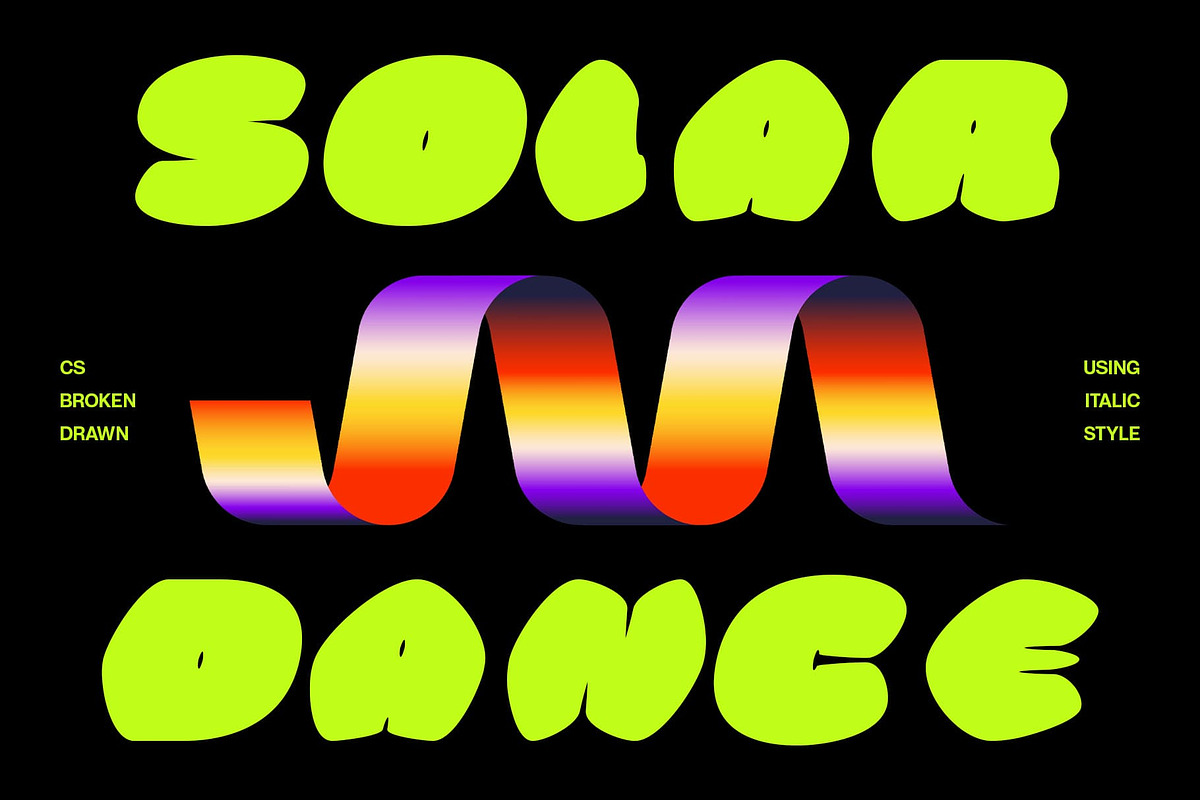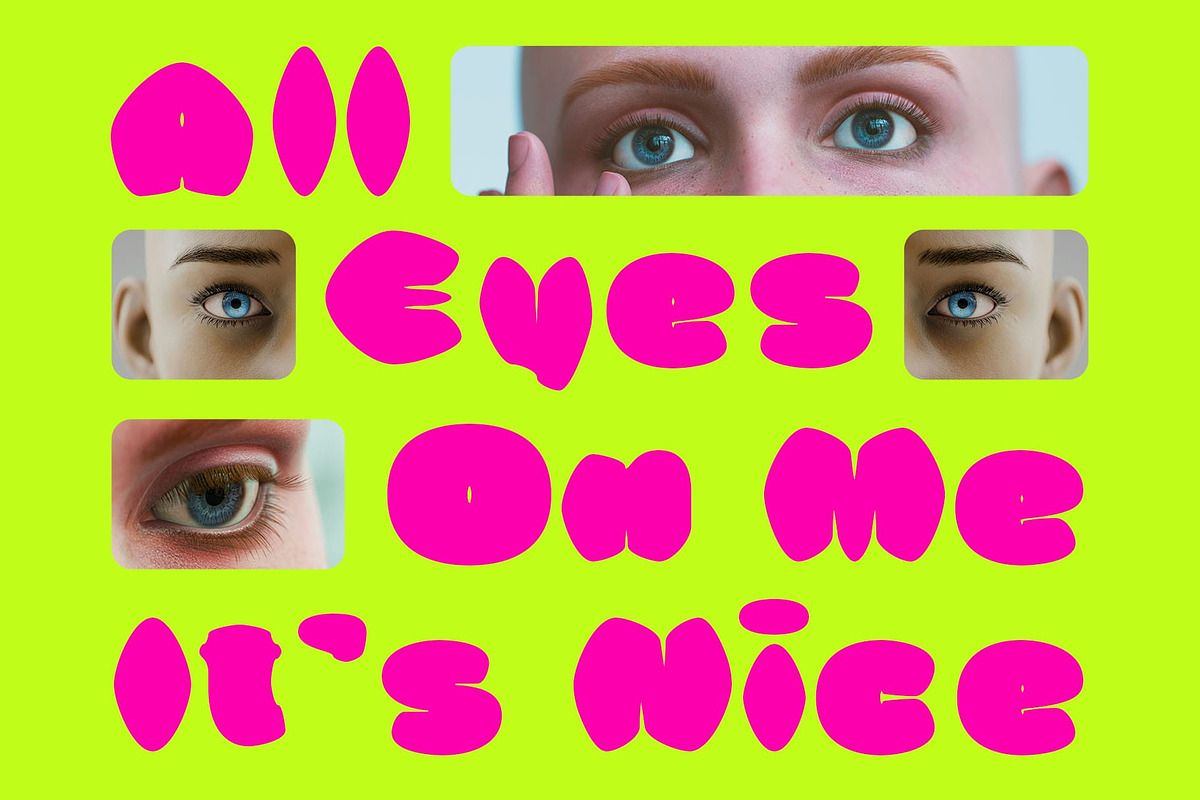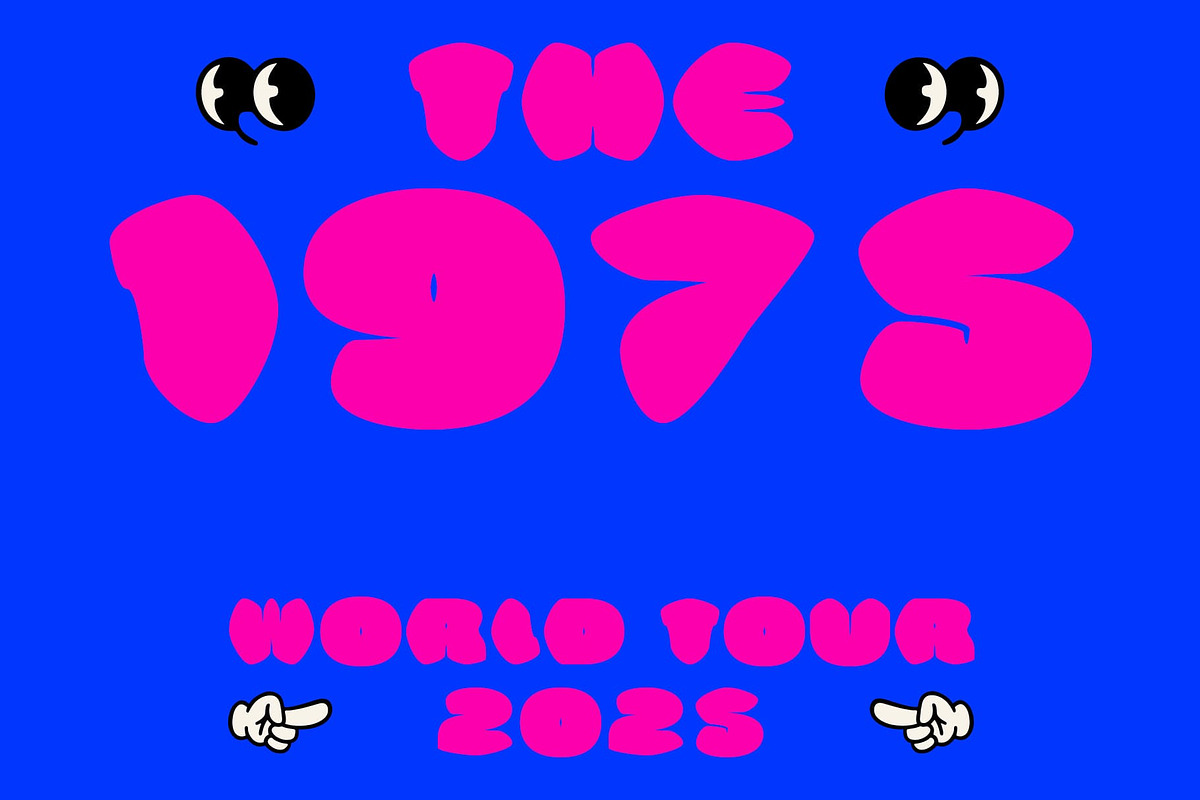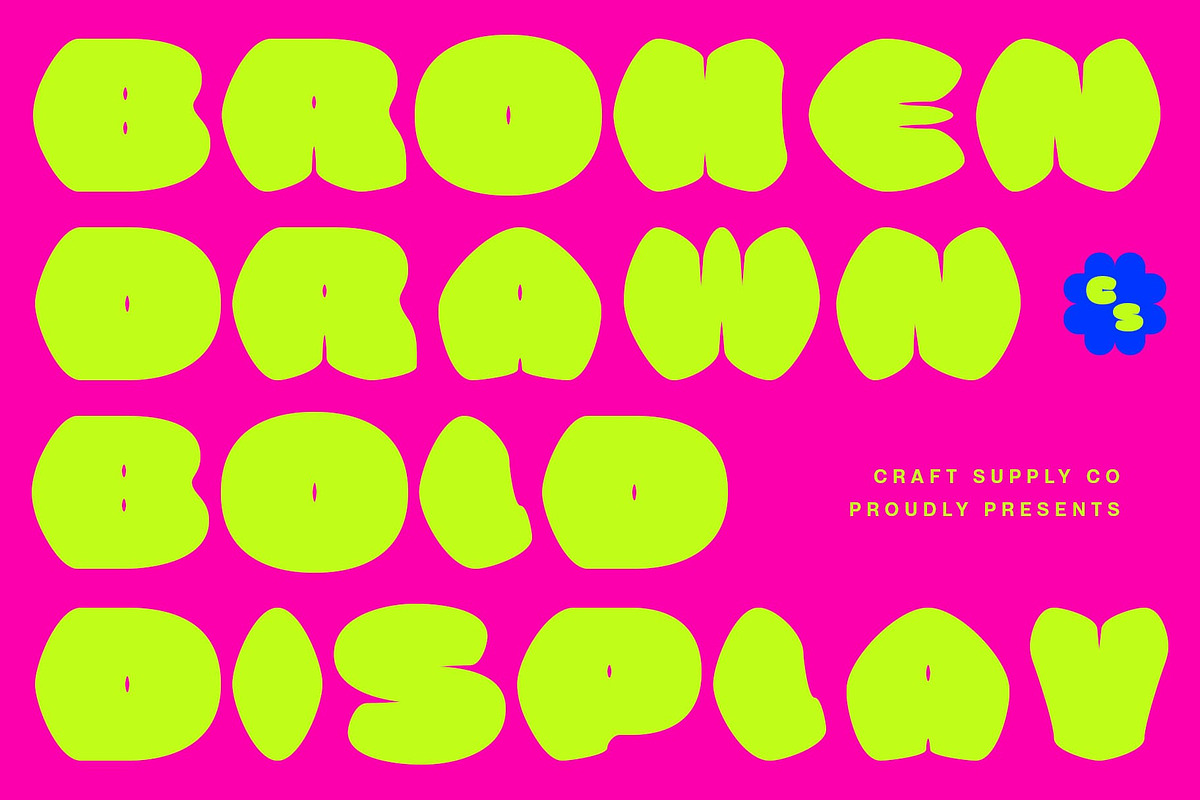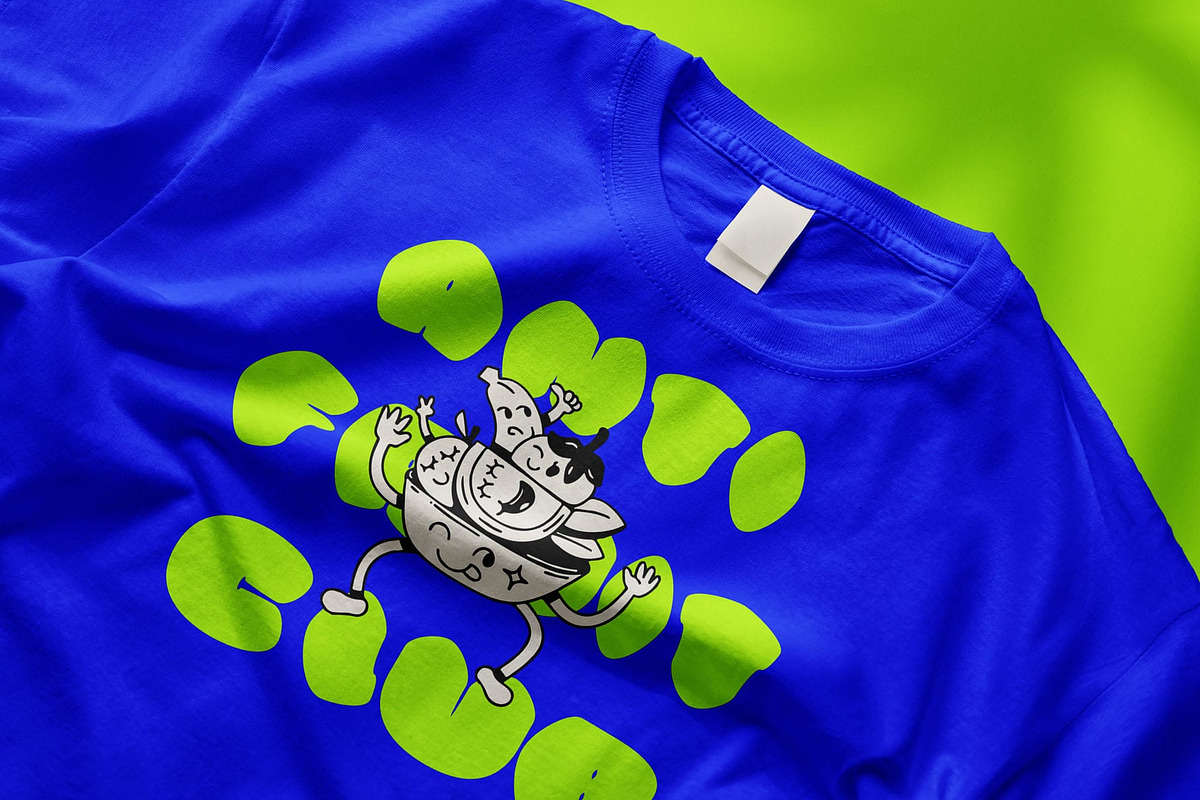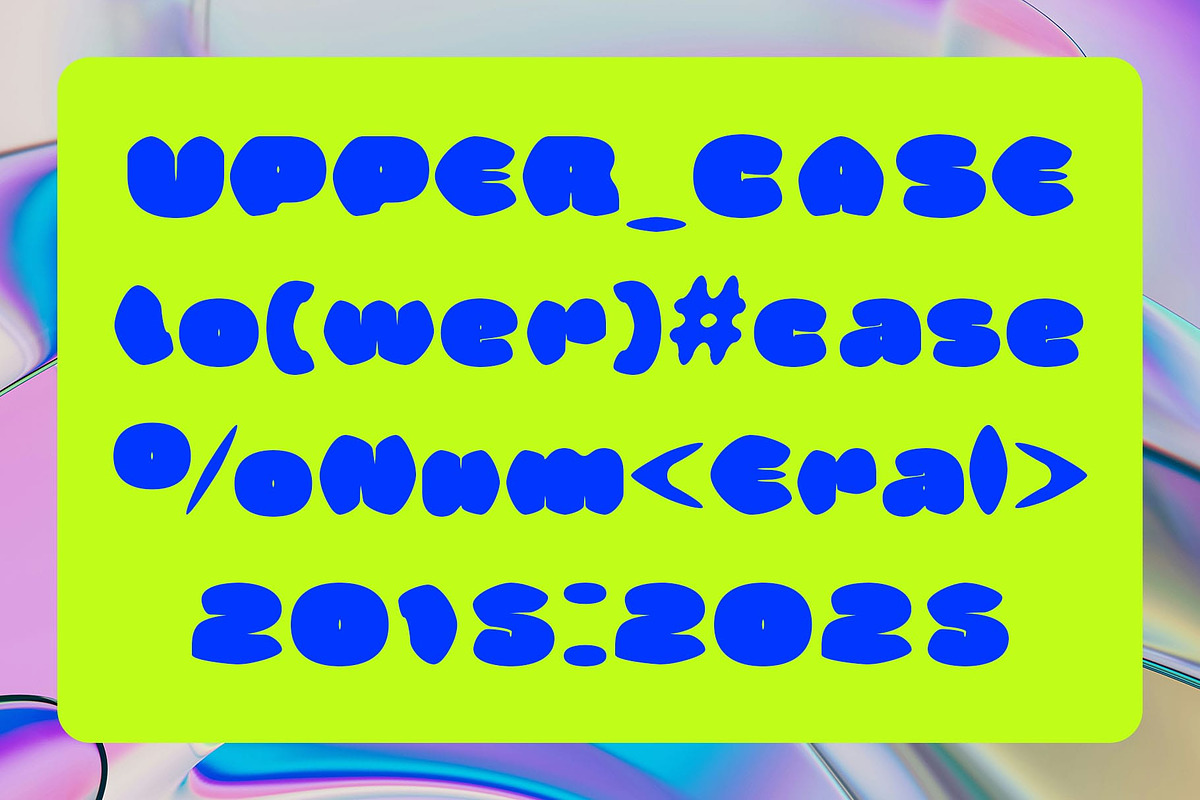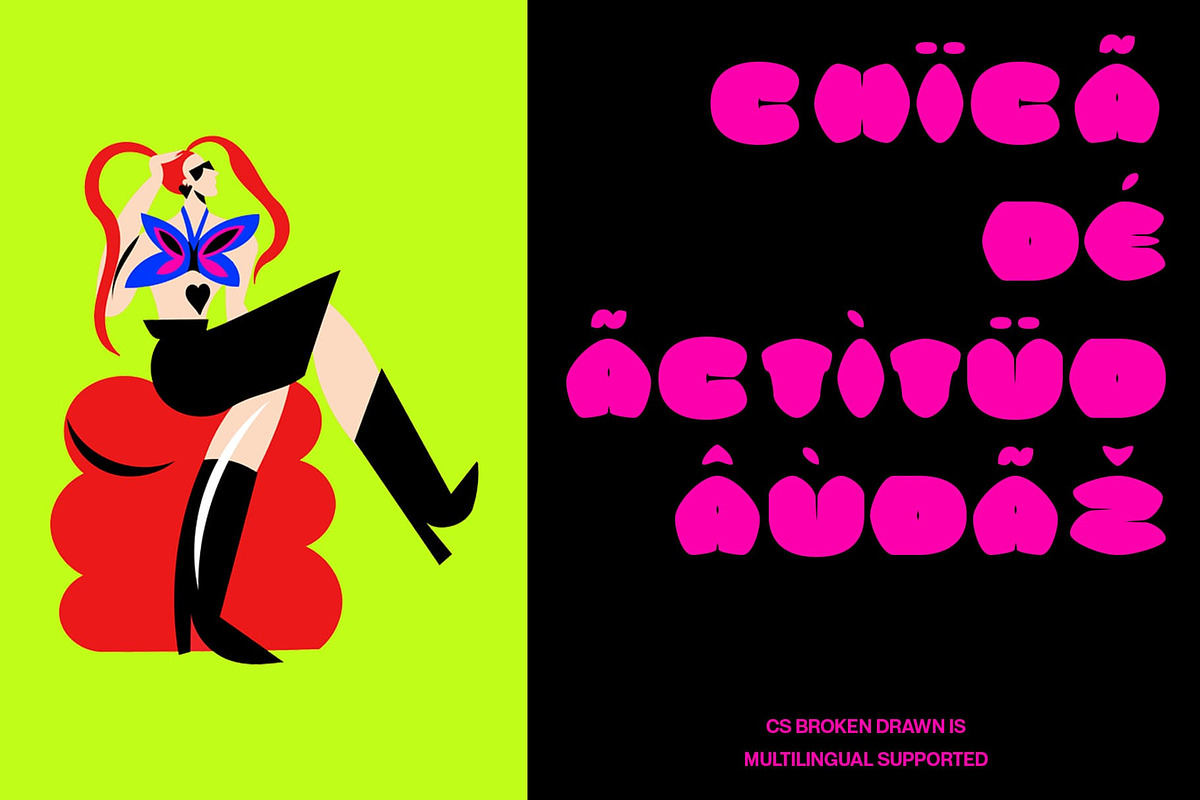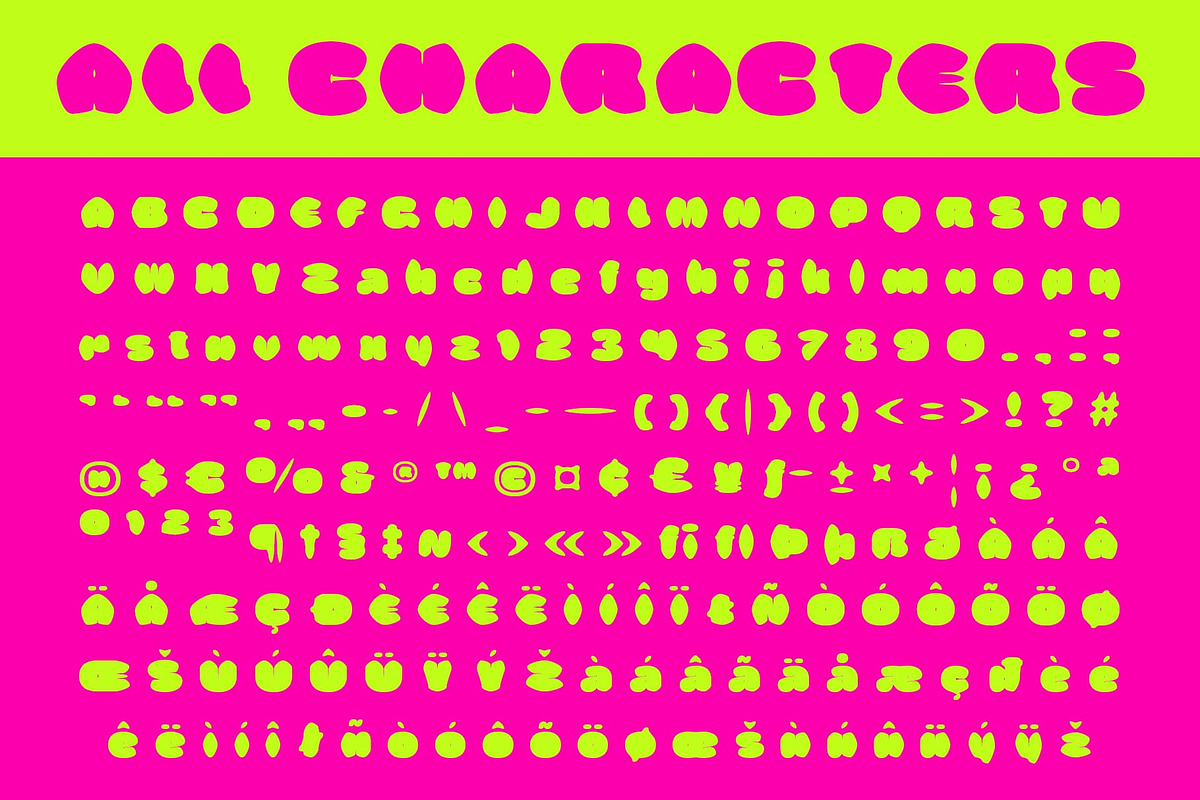
CS Broken Drawn
CS Broken Drawn – Bold Personality with a Handcrafted Twist
Playful Display Font with Funky Energy This is a bold display font bursting with charm and character. Its chunky, eye-catching letterforms give off a playful and energetic vibe, ideal for projects that want to be expressive and full of life. With its funky shapes and lighthearted flow, the font instantly attracts attention.
Cute, Cheerful, and Youthful Aesthetic The rounded forms and fun proportions radiate a youthful, cute spirit. Perfect for children’s themes, youth-centered branding, or vibrant campaigns, this handcrafted font communicates joy, creativity, and approachability with every letter.
Drawn Effect Adds Expressive Handcrafted Style The drawn effect gives the font a handcrafted, textured quality that adds depth and human touch. It feels artistic, expressive, and slightly imperfect—in the best way. Each letter has a personal flair that makes the overall look feel authentic and emotionally engaging, adding to its uniqueness and creative charm.
Great for Creative and Standout Designs Whether used on event posters, product packaging, brand identities, social media graphics, or visual content for music and entertainment, this quirky font stands out. Its boldness, artistic detail, and fun personality make it an ideal choice for designers looking to bring creativity, warmth, and individuality to their work.